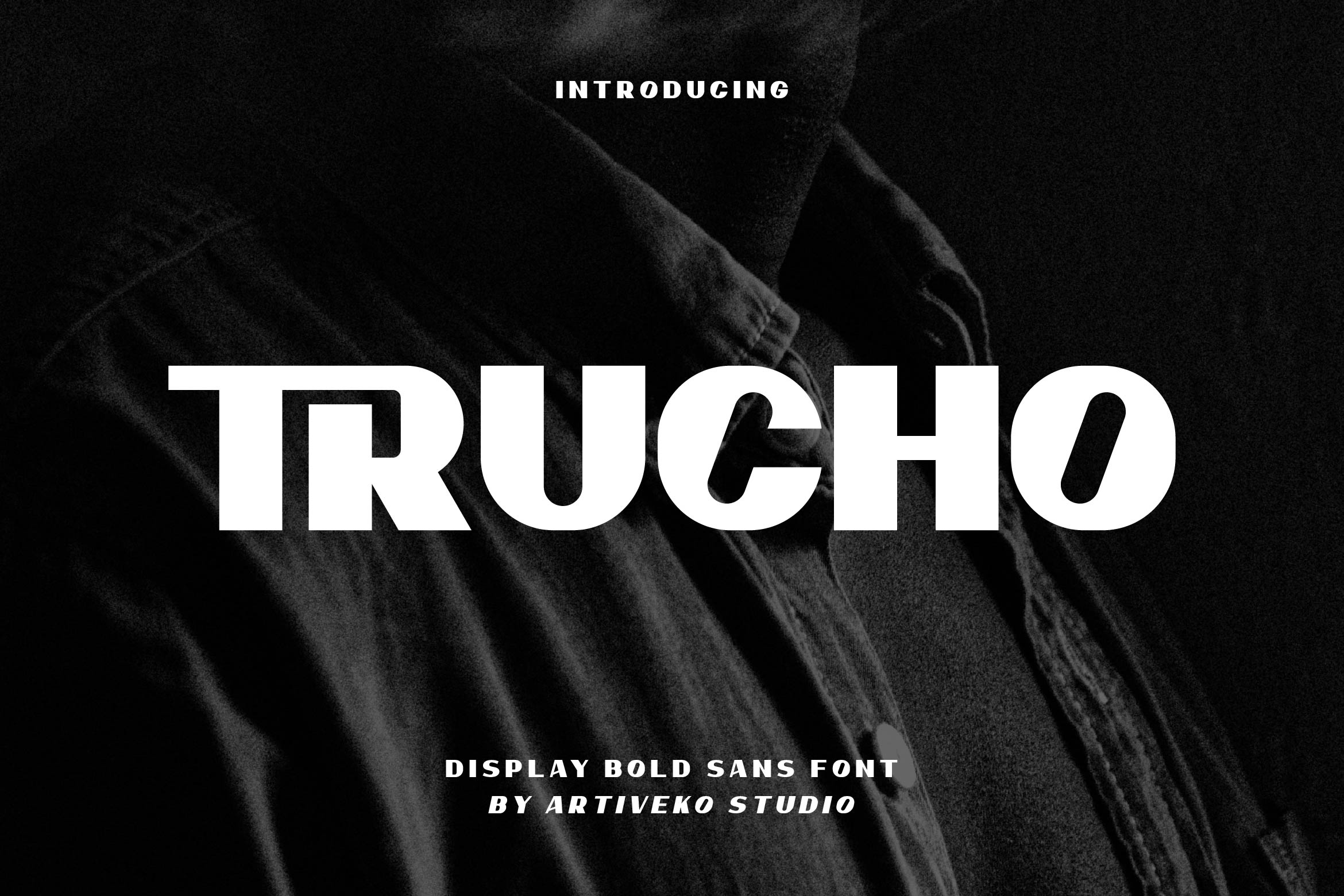
- Trucho Bold Strong Font
Trucho is a powerful and modern sans serif font designed to make a lasting impression. With its bold letterforms, clean geometry, and confident structure, Trucho is perfect for impactful logos, attention-grabbing headlines, posters, packaging, and contemporary branding projects that demand strength and clarity.
Its striking design ensures maximum visibility while maintaining professional balance and smooth readability. Trucho works beautifully across various creative fields — from fashion and tech to lifestyle brands and editorial design — giving your visuals a bold, modern edge.
Stand out with Trucho — a bold sans serif font that blends modern aesthetics with powerful visual impact, perfect for creating strong and memorable brand identities.